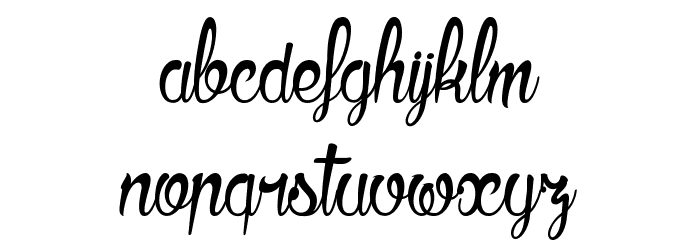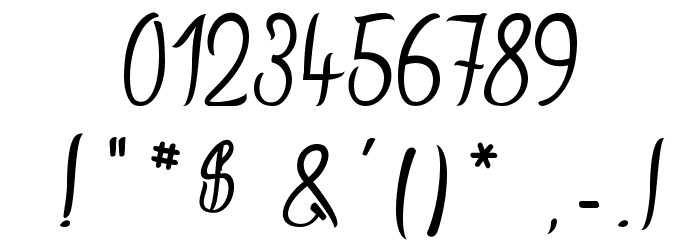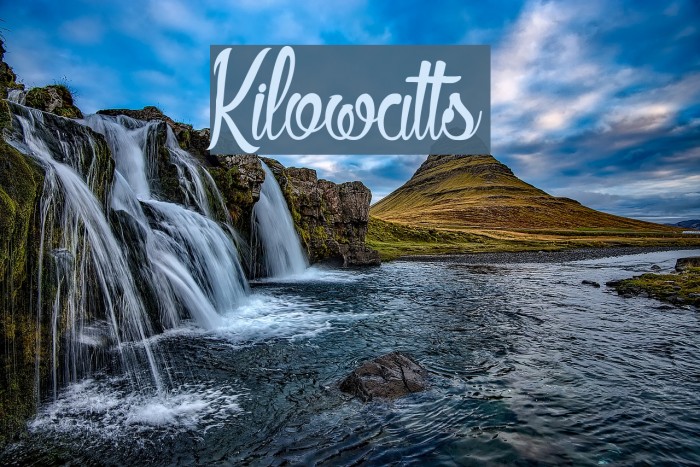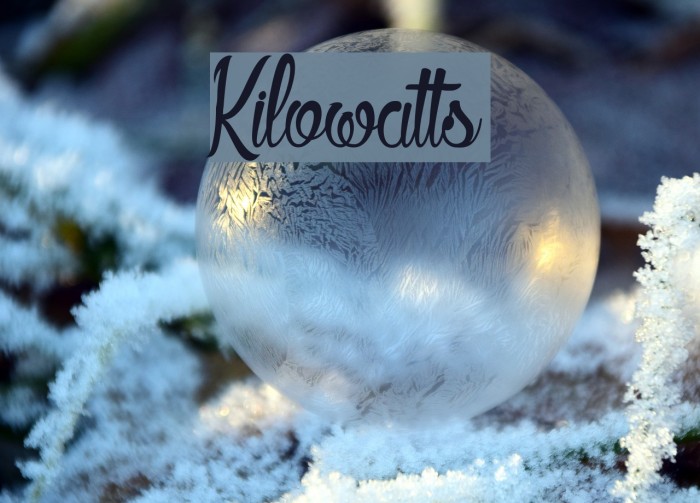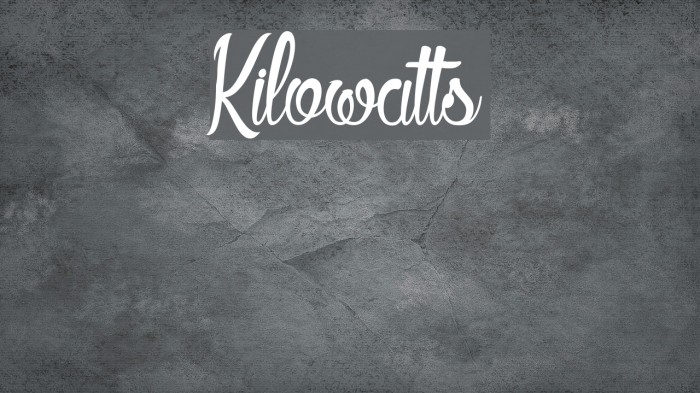
Kilowatts Font
This font features a dynamic and flowing script style, characterized by its elegant curves and smooth connections between letters. The uppercase letters are bold and prominent, with distinctive loops and swashes that add a touch of sophistication. The lowercase letters maintain a consistent flow, enhancing readability while retaining a stylish flair. Numbers are well-integrated into the design, matching the overall aesthetic with their rounded forms and slight slant. Special characters are thoughtfully designed to complement the script, ensuring versatility in various applications. The font's overall appearance is both modern and classic, making it suitable for a wide range of creative projects.
A dynamic and elegant script font with smooth connections and stylish flair.
- Proposed Projects: Ideal for wedding invitations, branding, logo design, and elegant stationery.
- Use Case: Logos, Headlines, Invitations